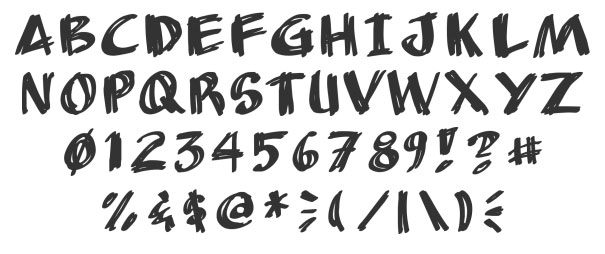
30 In Different Fonts. Serif fonts have a classic look to them, and the serifs are also known to aid in the readability of text. This font is known as one of a kind google font that has exceptional style.
Type your text into the font generator. Halton is a clean font that comes with a condensed letter design. Color font technology has allowed designers to bring rich graphic features like color, gradients, and textures into a font file.
If you’re searching for free serif fonts, check out popular fonts like nightmare pills and playfair display. This dope graffiti brush font features natural, rough brush strokes. Type your text into the font generator.
This Graffiti Font Includes A Set Of 22 Swashes And Four Paint Splatters.
These Fonts Will Add A Splash Of Vibrance And Color To Your Next Project.
This font is known as one of a kind google font that has exceptional style. The font is available in 4 different weights and 4 italic versions. The numbers have slim horizontal lines as well as wide vertical strokes.
This Font Has An Interesting Letter Shapes With Beautiful Bent Edges, Designed By Jos Buivenga.
The georgia font is one of the most professional fonts for resumes or cover letters. This font is designed for use on any web browser regardless of the system and would also look good printed on flyers, clothing and more. It makes the numbers look like art and have a certain style.
This Hand Brush Font Duo Features A Casual Design With Incredible Texture.
On the other hand, colorful fonts, also known as chromatic fonts or multicolor fonts contain color information in addition to shape information. It features a minimal yet elegant look that’s ideal for business card and logo designs. This font is best utilized in all caps and is best suited for posters, titles, prints and other western designs.